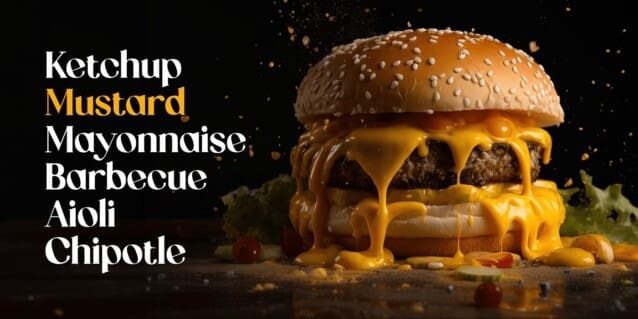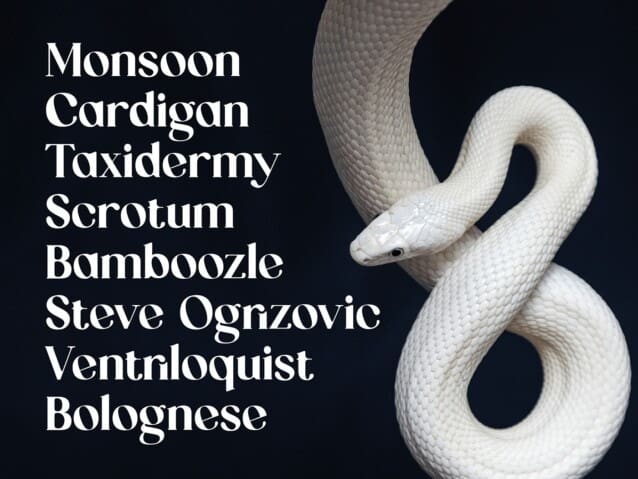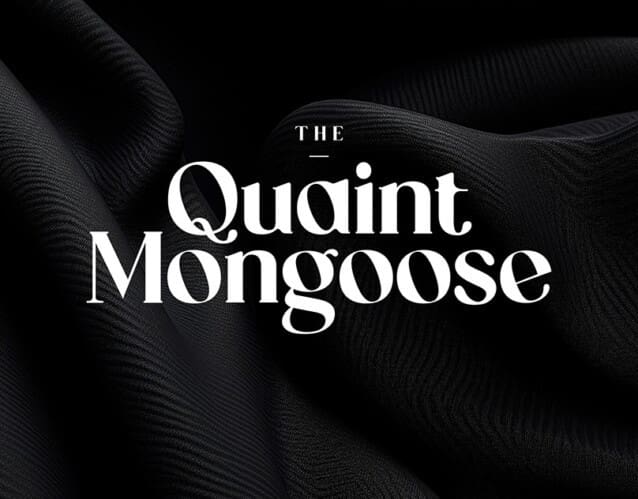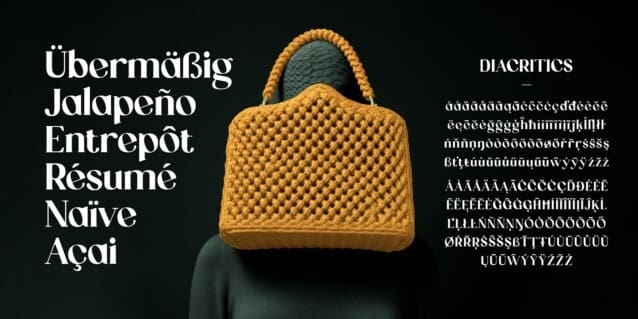
The Quaint Mongoose Font
The Quaint Mongoose Font is a unique display font. It captures a distinct and charming vibe, blending vintage aesthetics with modern design elements. With its quirky and unconventional letterforms, The Quaint Mongoose adds a touch of whimsy and character to any project. Whether you’re creating retro-inspired posters, playful logos, or eye-catching headlines, this font will evoke a sense of nostalgia and captivate your audience. Embrace the charm of The Quaint Mongoose and infuse your projects with its one-of-a-kind appeal.